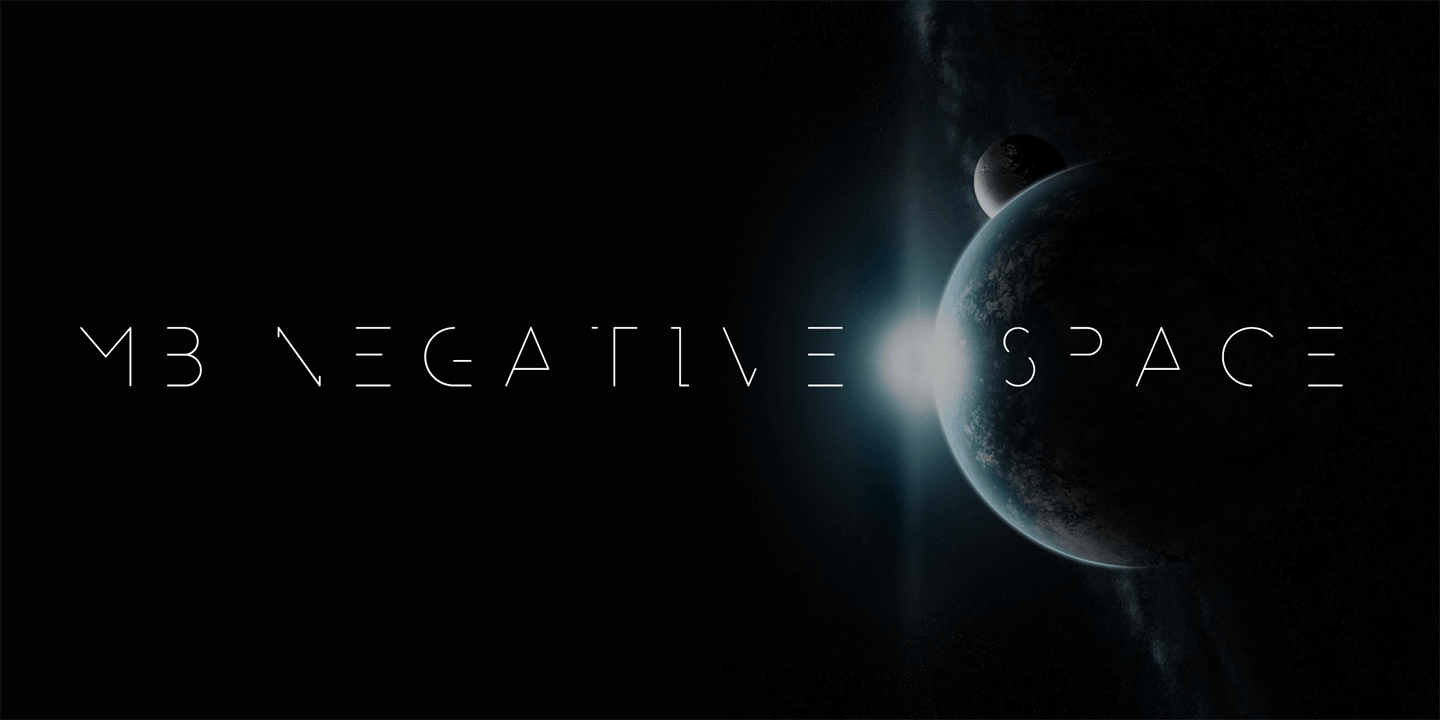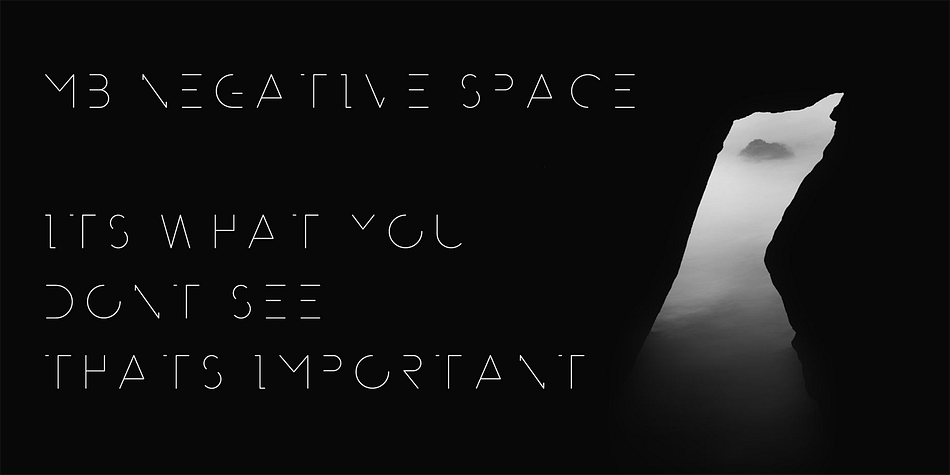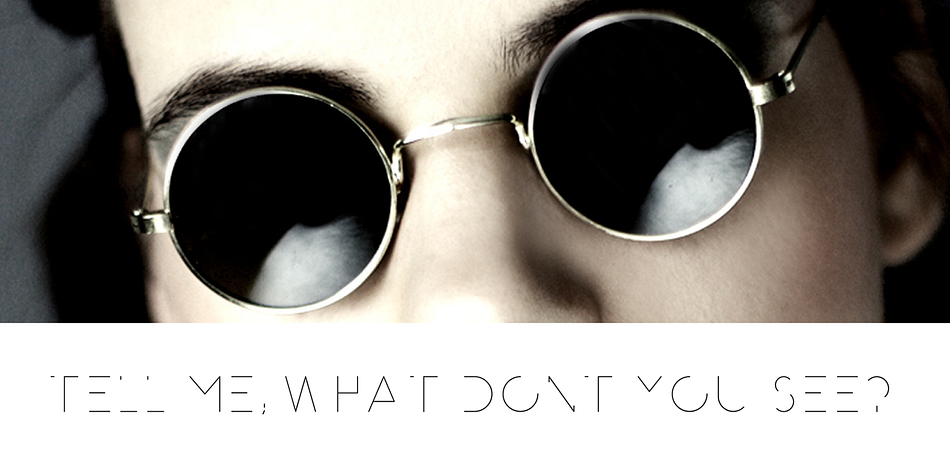
MB NEGATIVESPACE is a display font published by M-B Creative.
MB NEGATIVESPACE WAS INSPIRED ON A TRIP TO BIRMINGHAM WITH MY WIFE, SEEING A BILLBOARD WITH THE MAIN TEXT AND PARTS OF IT MISSING, THE IDEA IS TO USE IT SPARINGLY, USE A GOOD AMMOUNT OF TRACKING TO FILL IN THE BLANKS AND IT WORKS EVEN BETTER, GREAT FOR HEADLINES AND DISPLAYS LOGOTYPES AND SHORT TEXTS